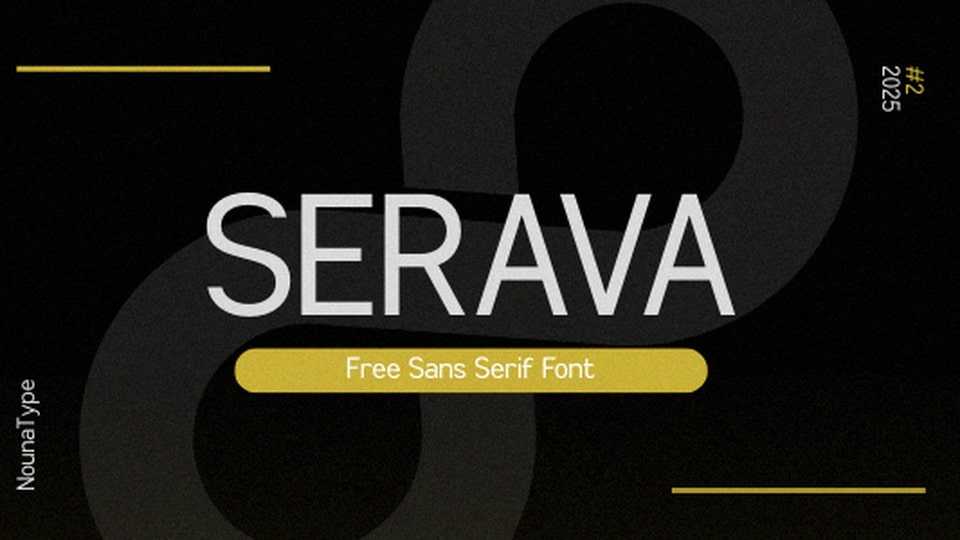
Download Serava font, a minimalist sans serif typeface designed to bring quiet elegance to any design. With clean lines, soft curves, and balanced spacing, it feels refined without being decorative.
Designer: NounaType